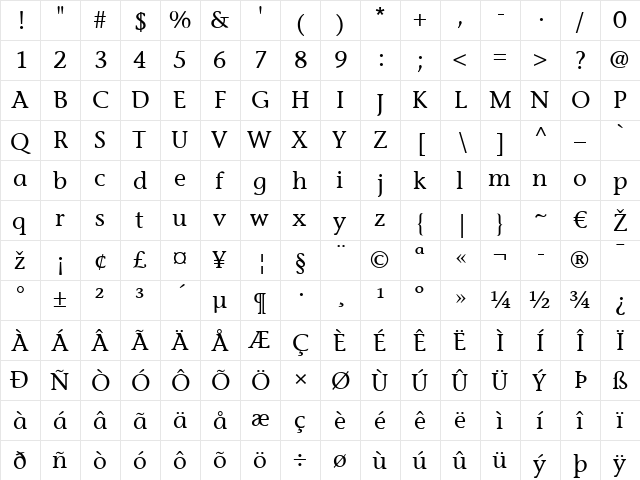
StoneInformal LT Regular
Design Context for StoneInformal LT Typeface
StoneInformal LT offers clean, dependable letterforms without strong stylistic allegiance, making it a practical choice for designers who need flexibility. The delicate stroke weight brings airiness and refinement to layouts.